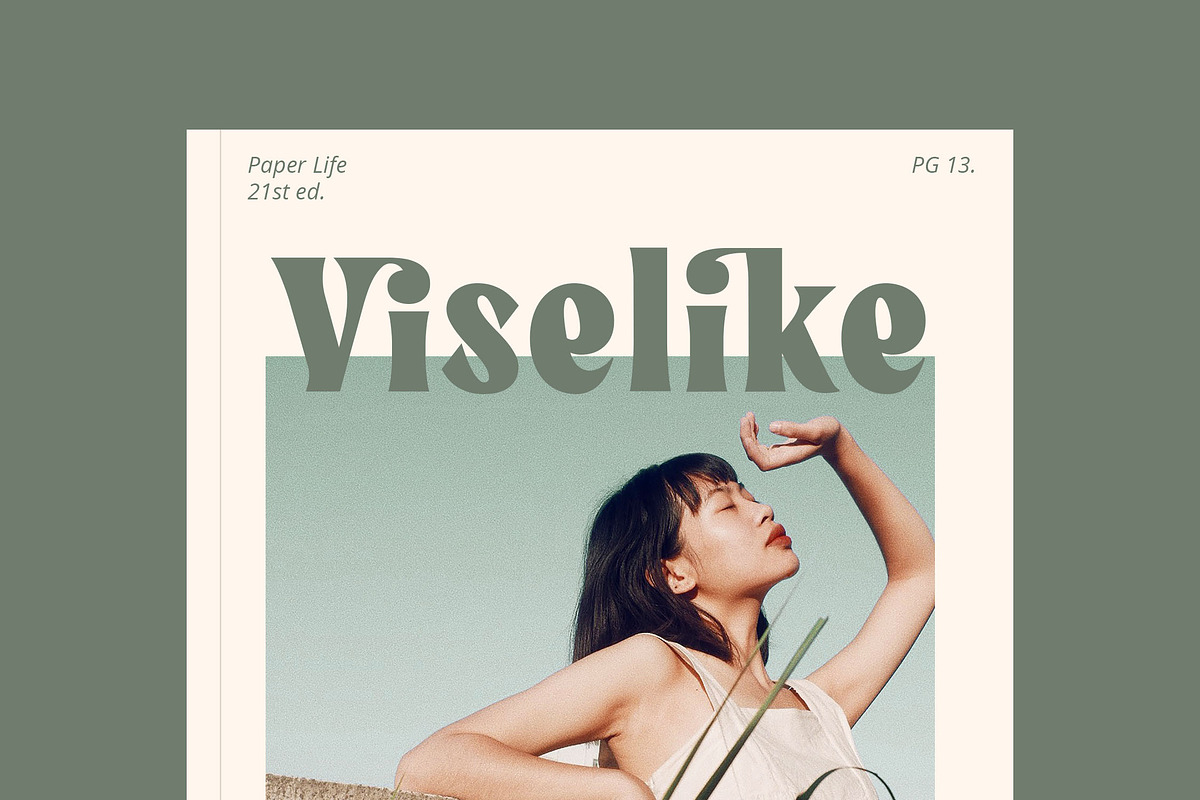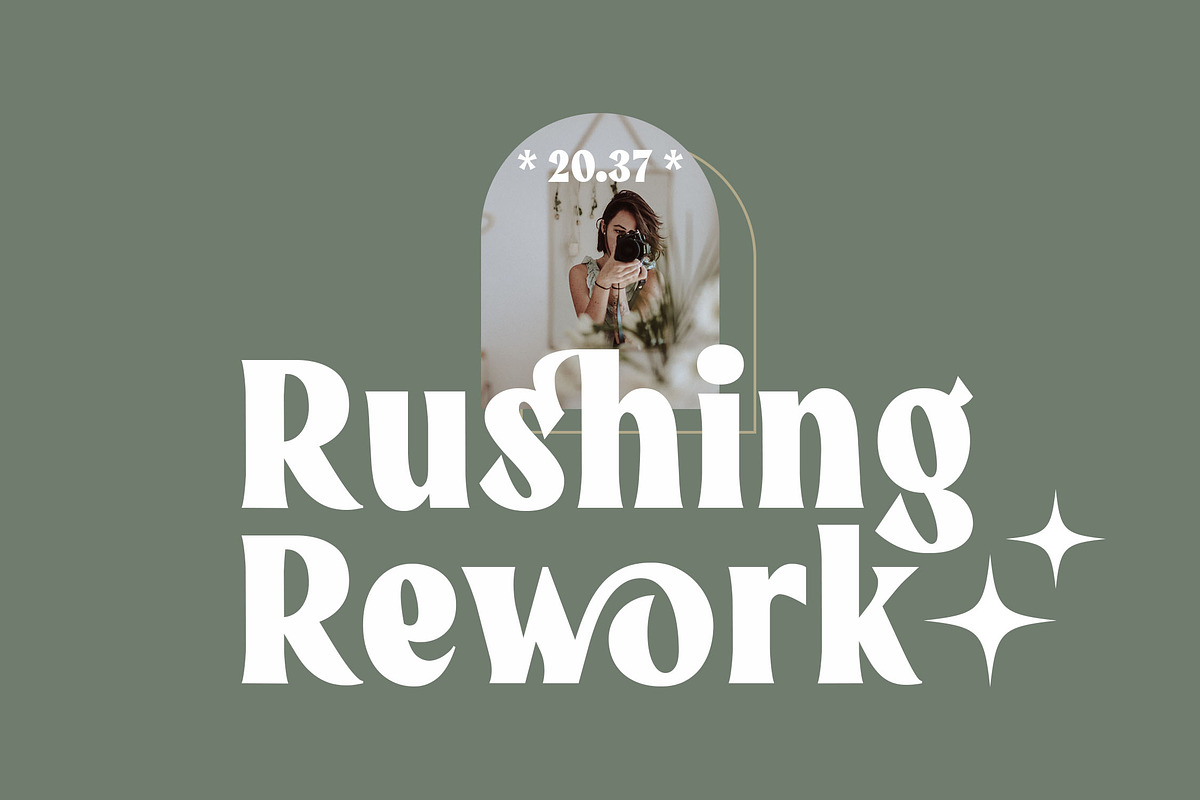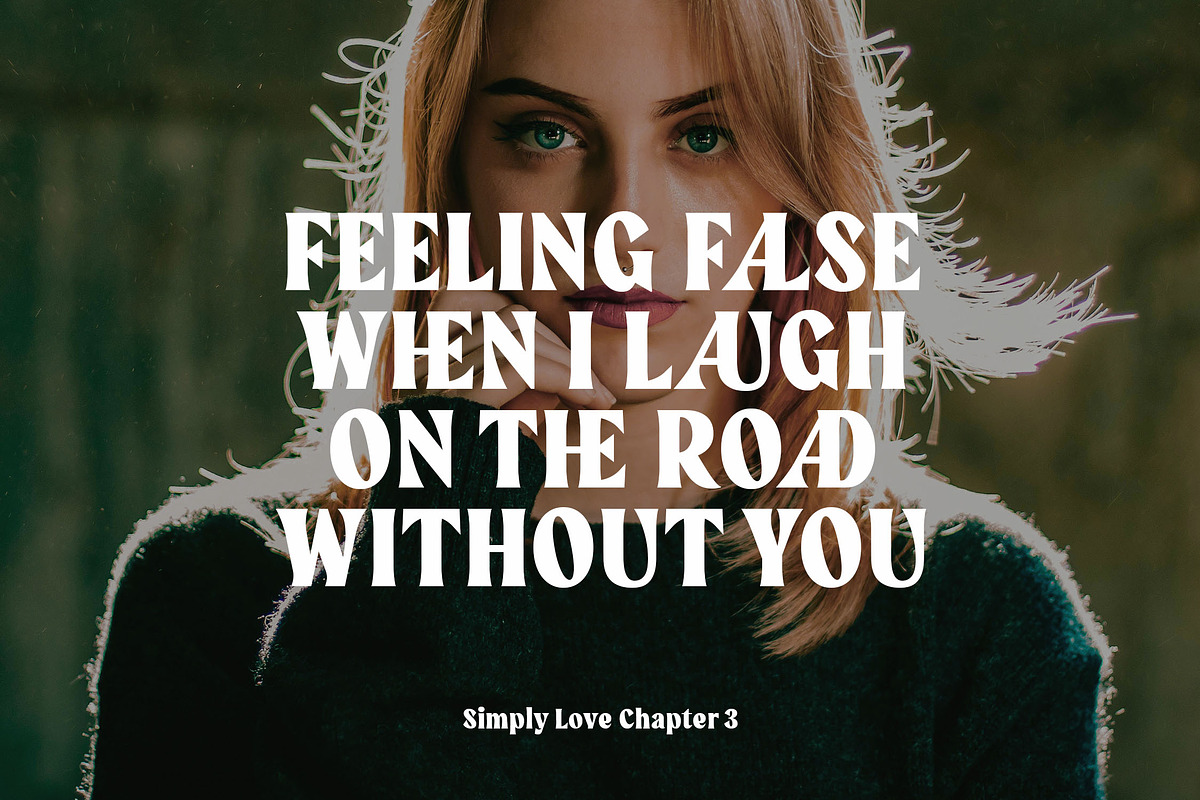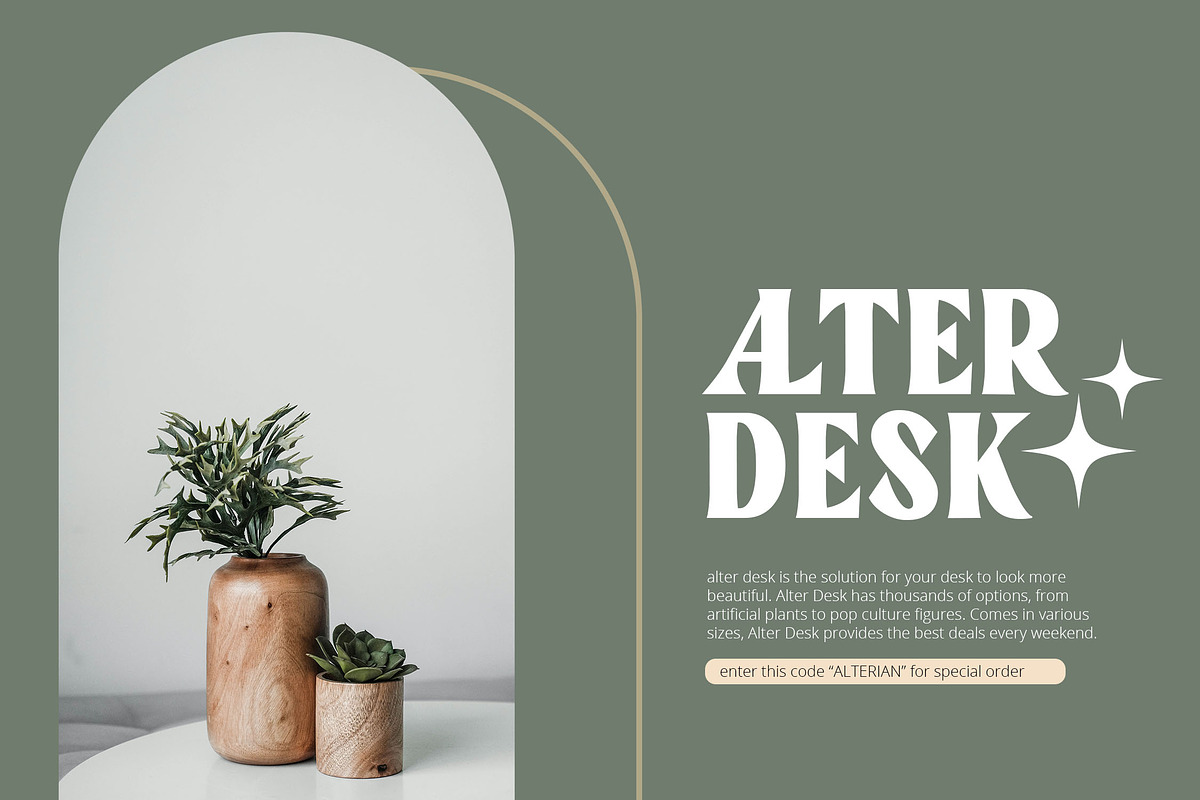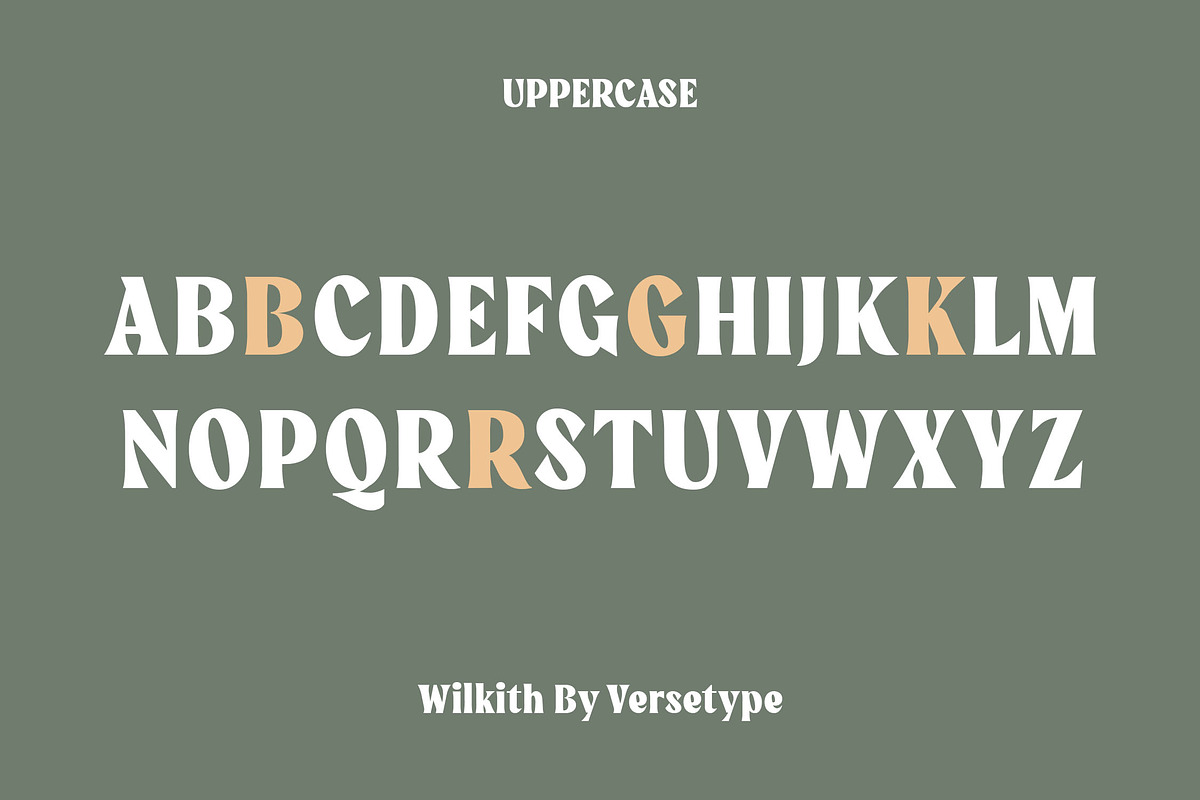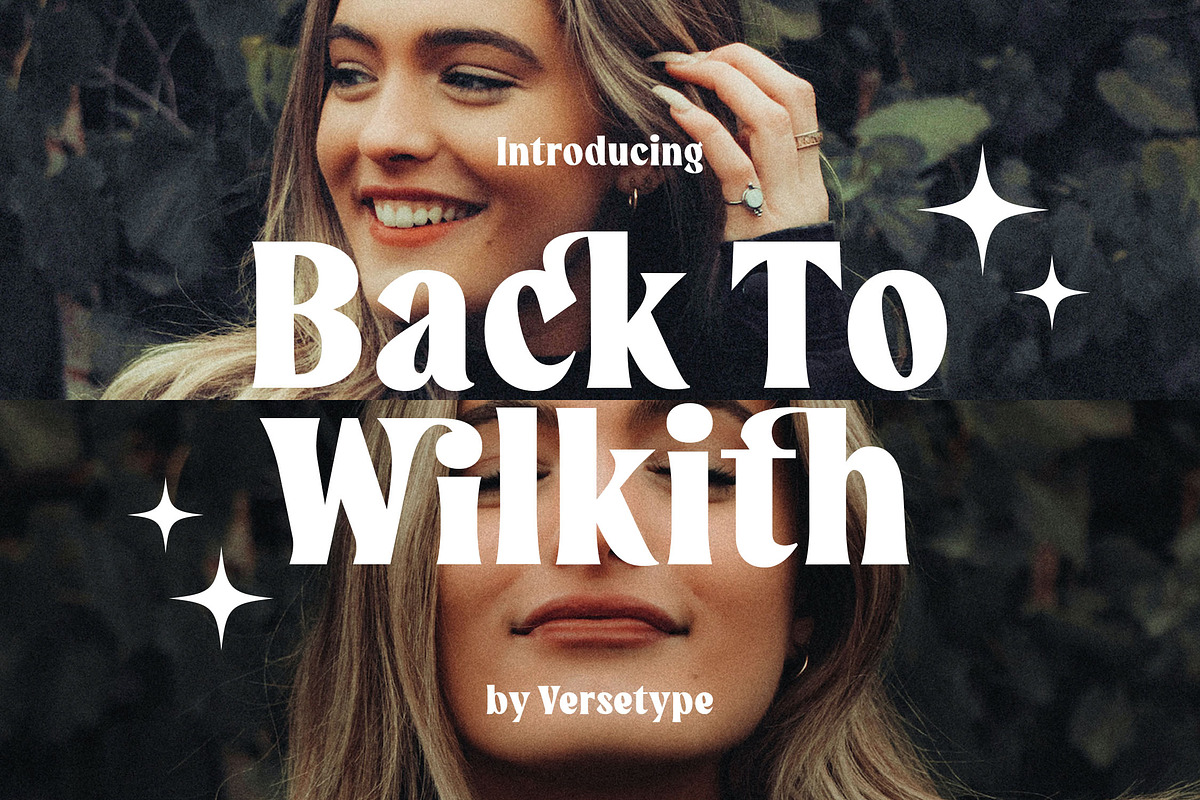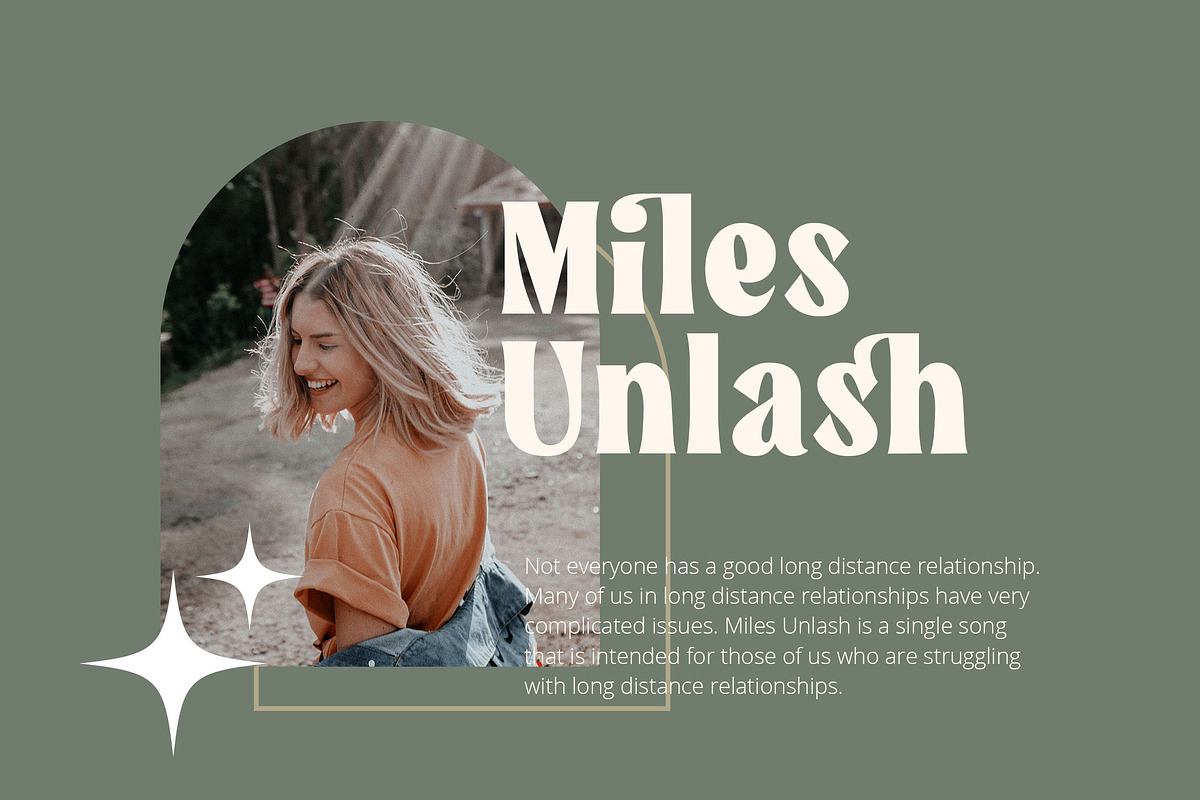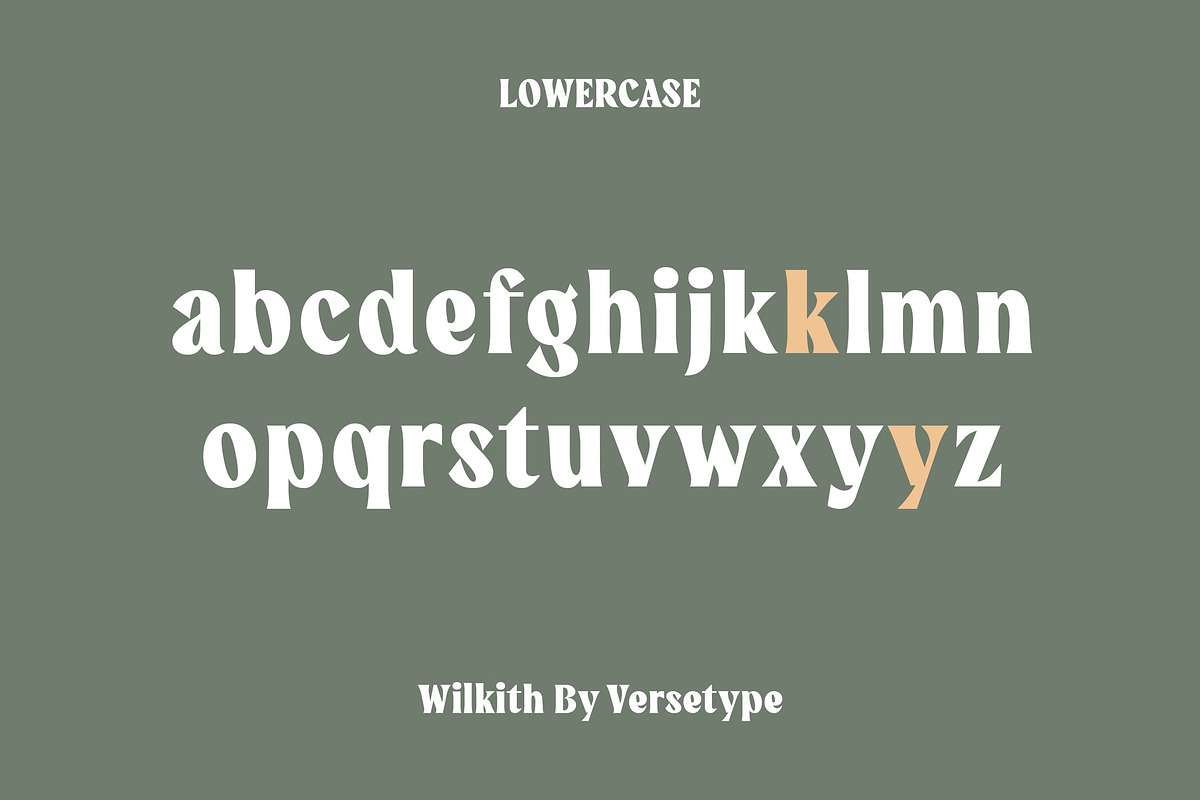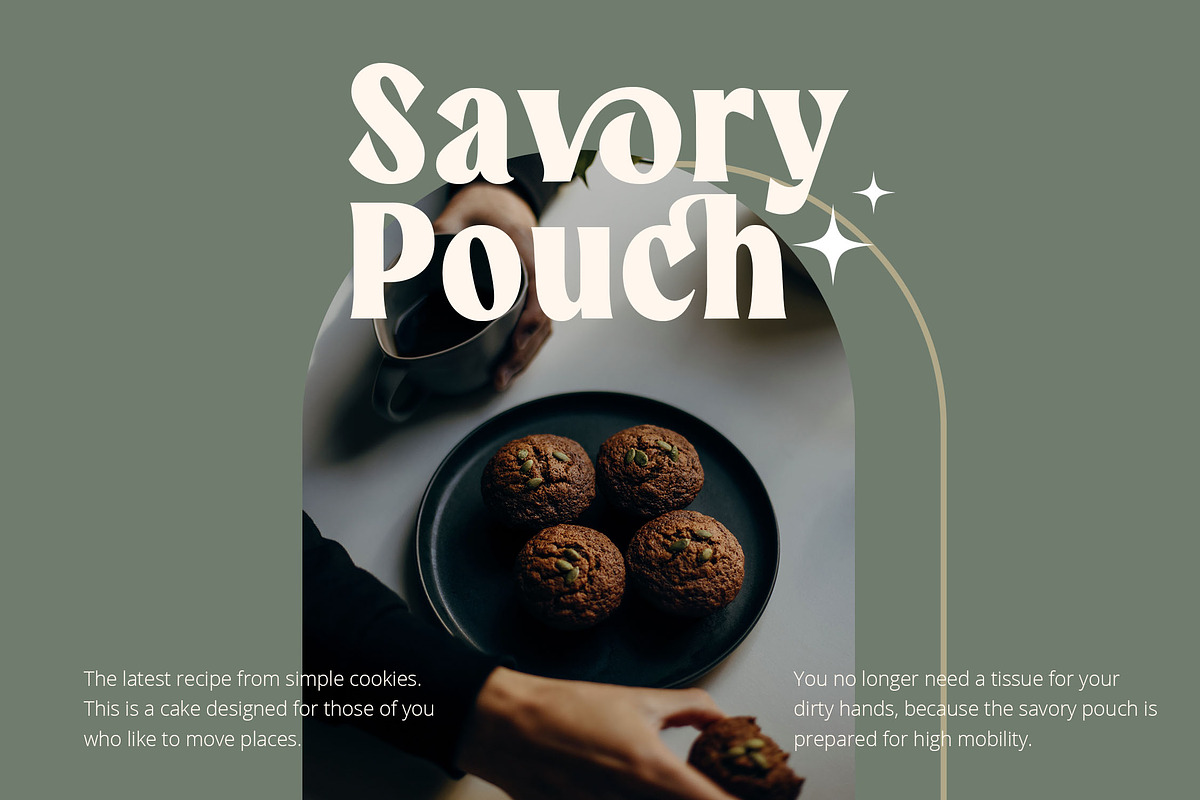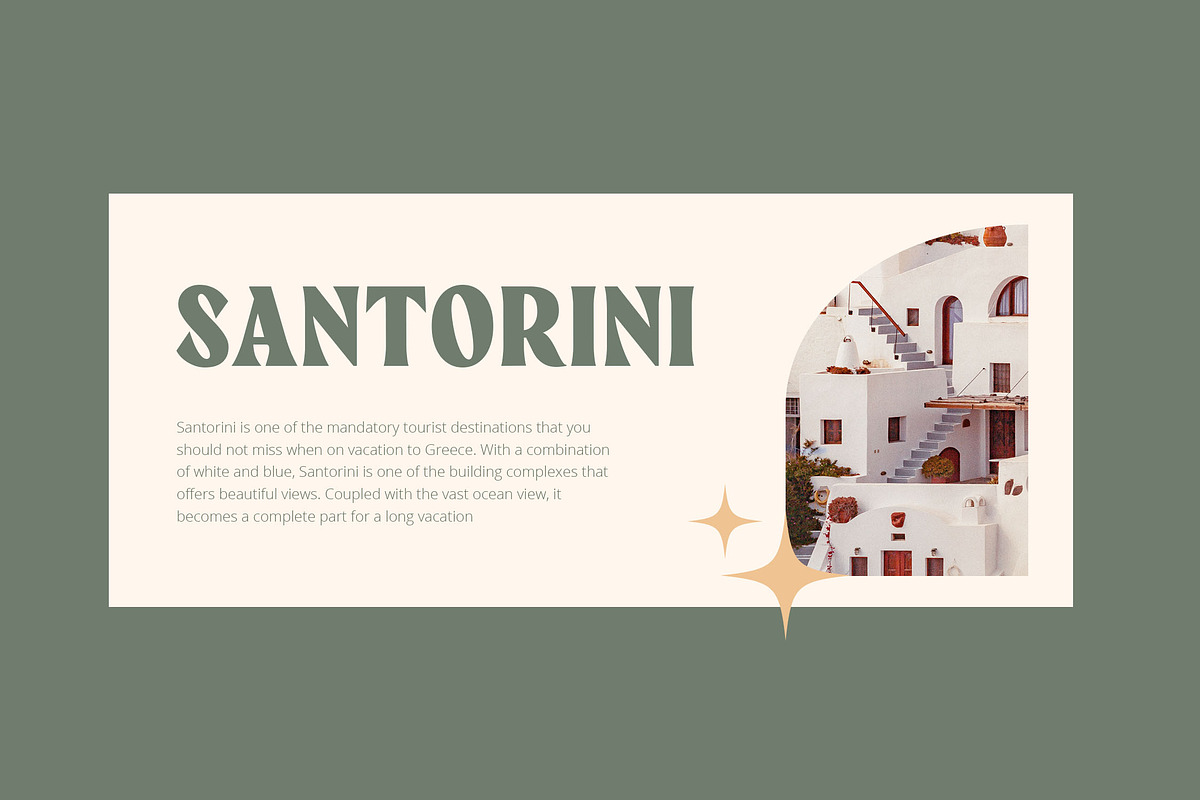
Wilkith Bold Serif
Wilkith has a very strong character. The bold bold with style condense and low stem height make Wilkith look very stand out when used for your design projects.
Wilkith has several alternative variants and ligatures that are very suitable for interactive text. Products such as magazine covers, editorial design, vlog thumbnails, branding logos, advertising, packaging, are some of the themes that are very suitable to use Wilkith